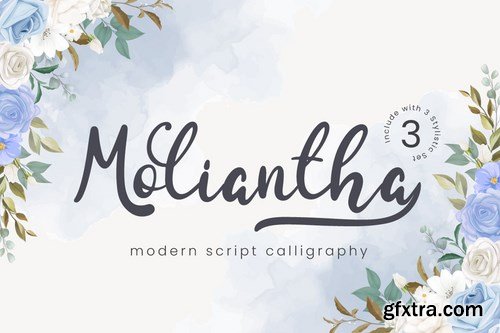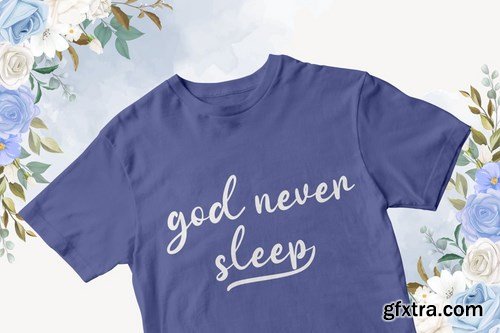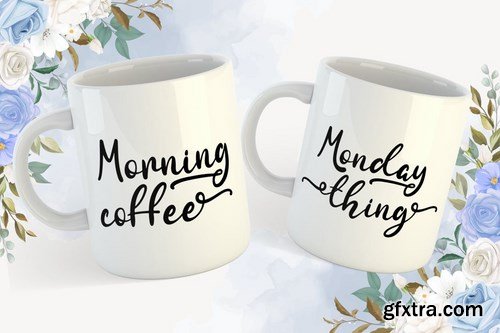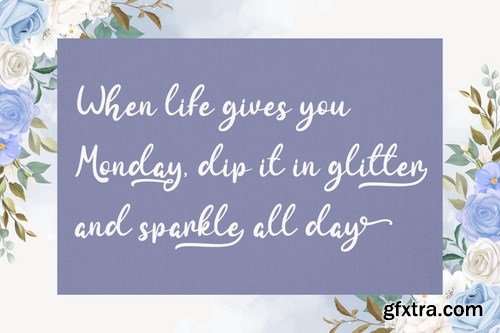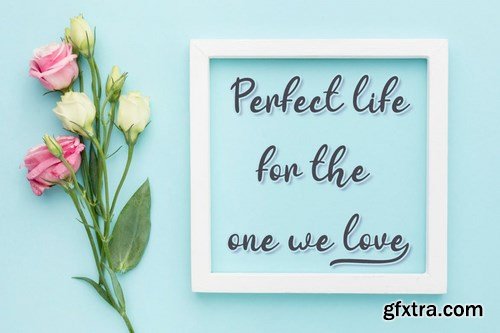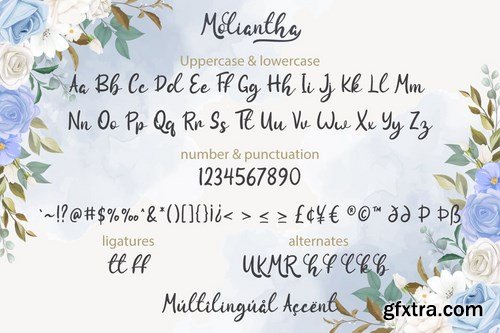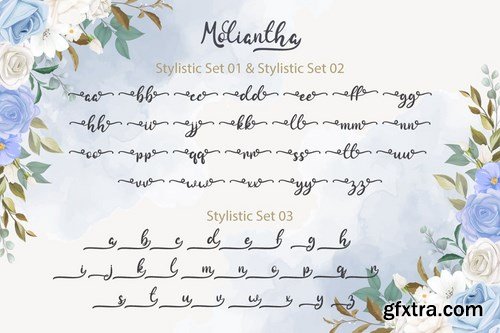
Moliantha is a delicate and incredibly distinct handwritten font with 3 stylistic set. Fall in love with its incredibly versatile style and use it to create spectacular designs!
Moliantha is perfect for branding, logo, invitation, stationery, social media post, product packaging, merchandise, blog design, game titles, cute style design, Book/Cover Title and more. What's Included : Moliantha (.otf/.ttf) Moliantha SS01 & SS02 (.otf/.ttf) Moliantha SS03 (.otf/.ttf) ligatures Beginning & Ending Swash Multilingual Support Made it into separated file to make it easier to use by beginner & separated file user can use the font with software which doesn't accept open type features. ---